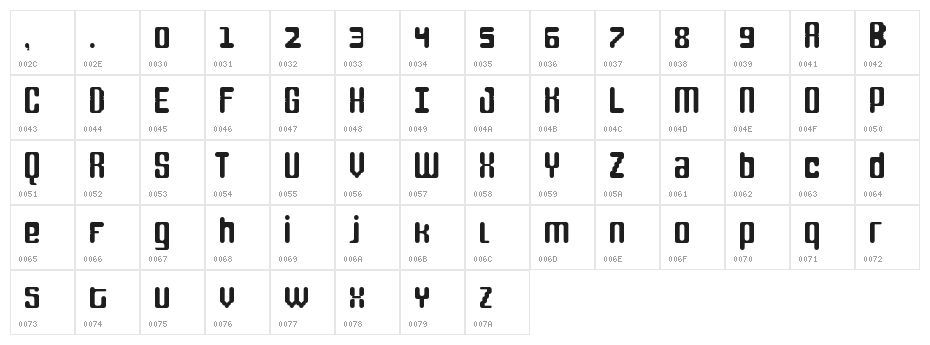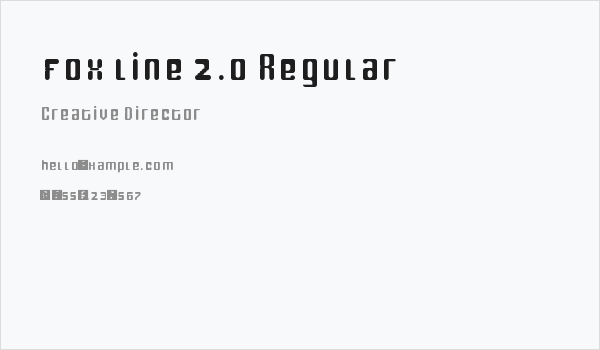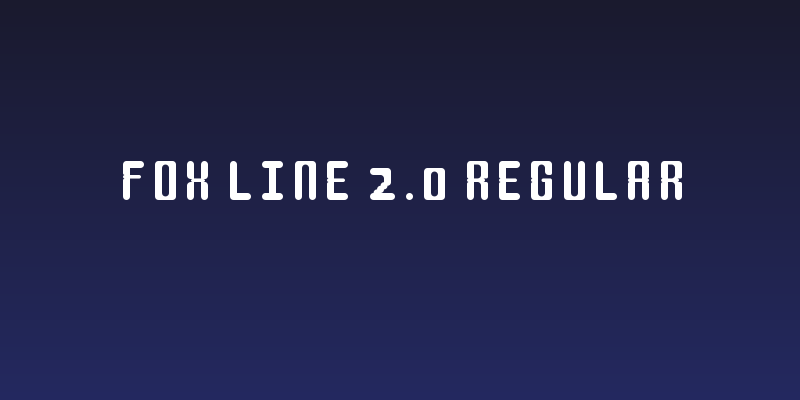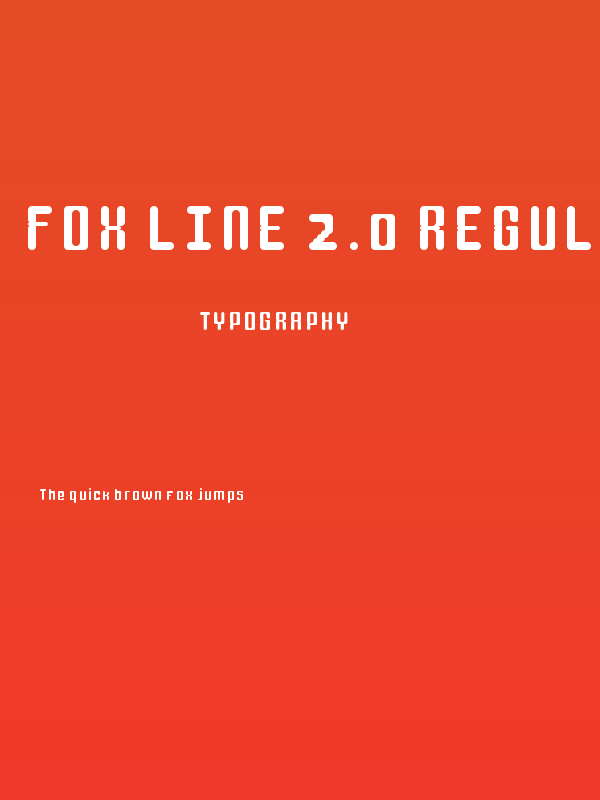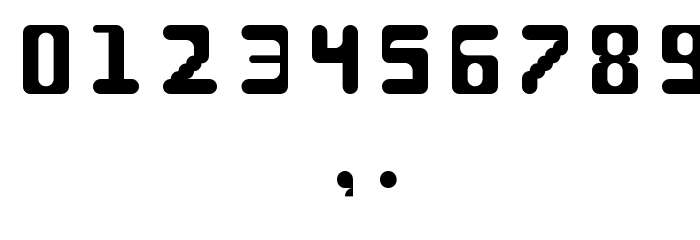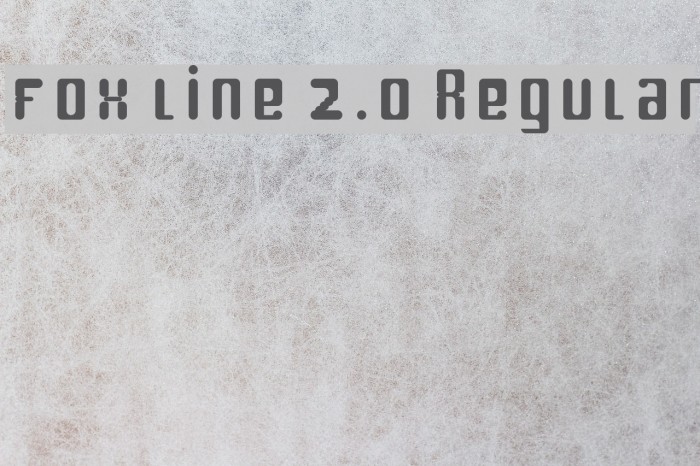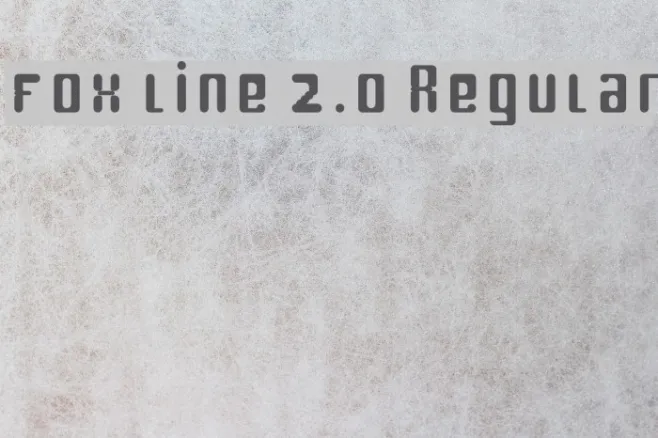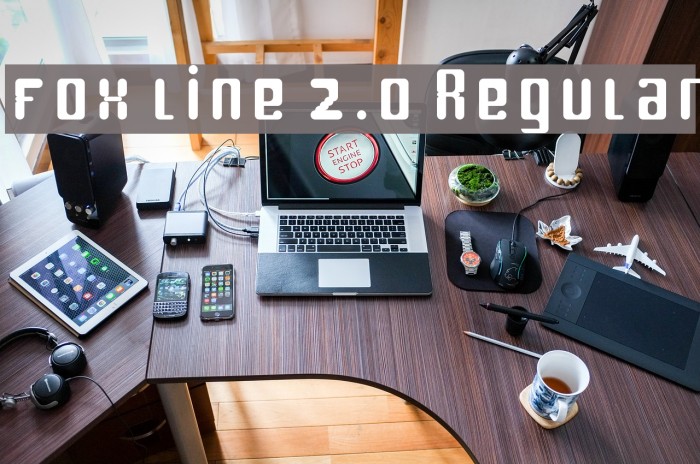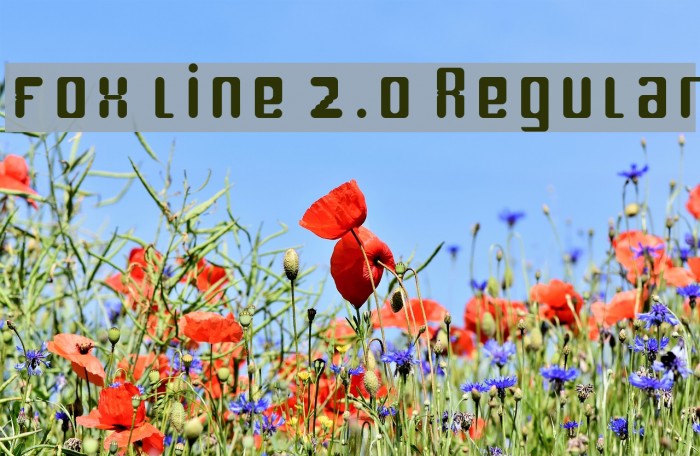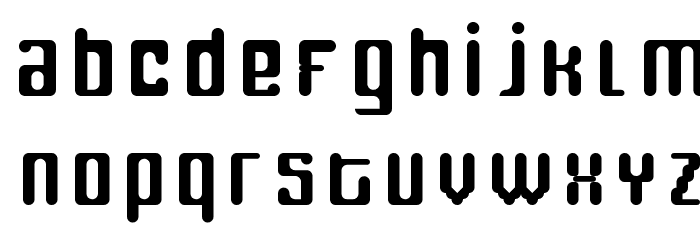
fox line 2.0 Regular Font
fox line 2.0 Regular Description
This font features a bold, geometric style with a modern twist. The characters are constructed with uniform stroke widths, giving it a monospaced appearance, although it is not strictly monospaced. The design incorporates rounded edges and a blocky structure, which adds a sense of solidity and strength. The uppercase and lowercase letters maintain a consistent height, enhancing readability. The numerals and special characters follow the same design principles, ensuring a cohesive look across all glyphs. This font's unique style makes it stand out, while still being versatile enough for various applications.
| Proposed Projects | Ideal for branding, posters, headlines, and digital interfaces where a modern and strong presence is desired. |